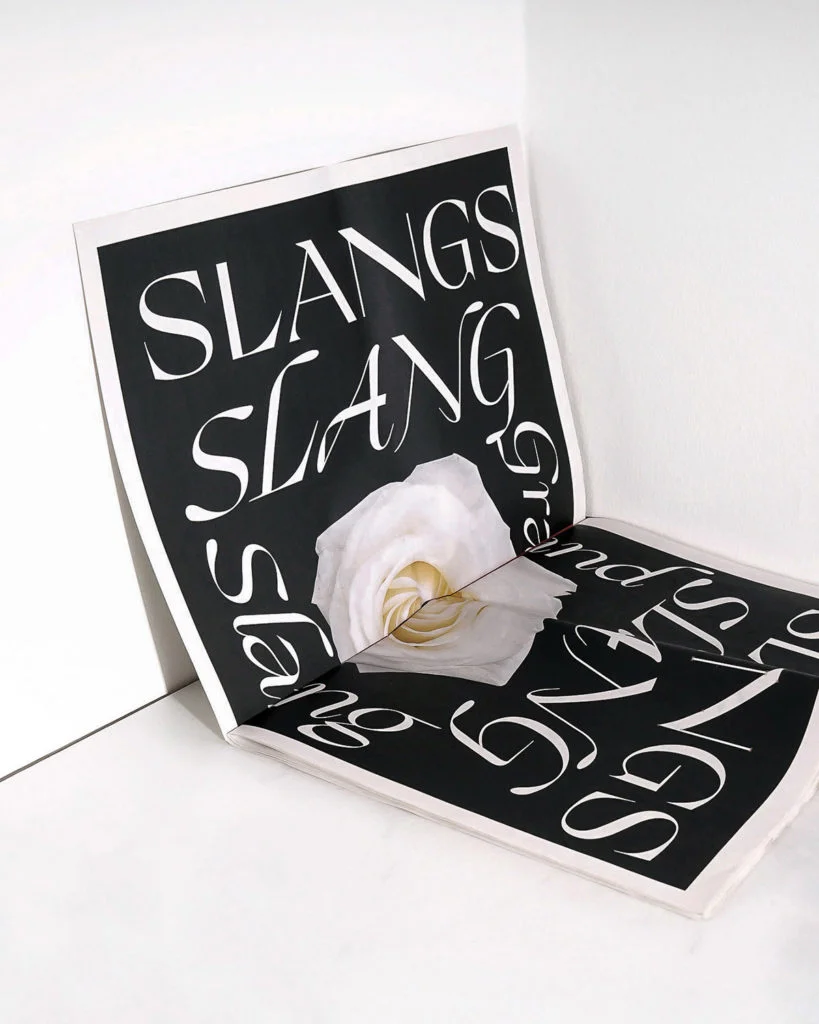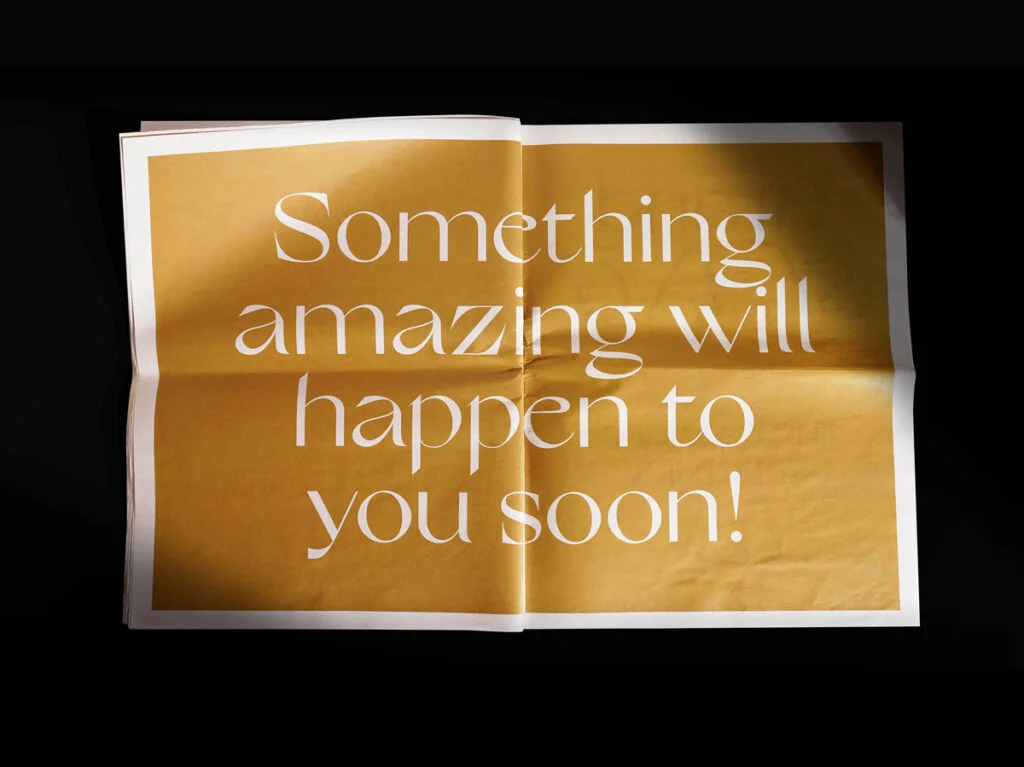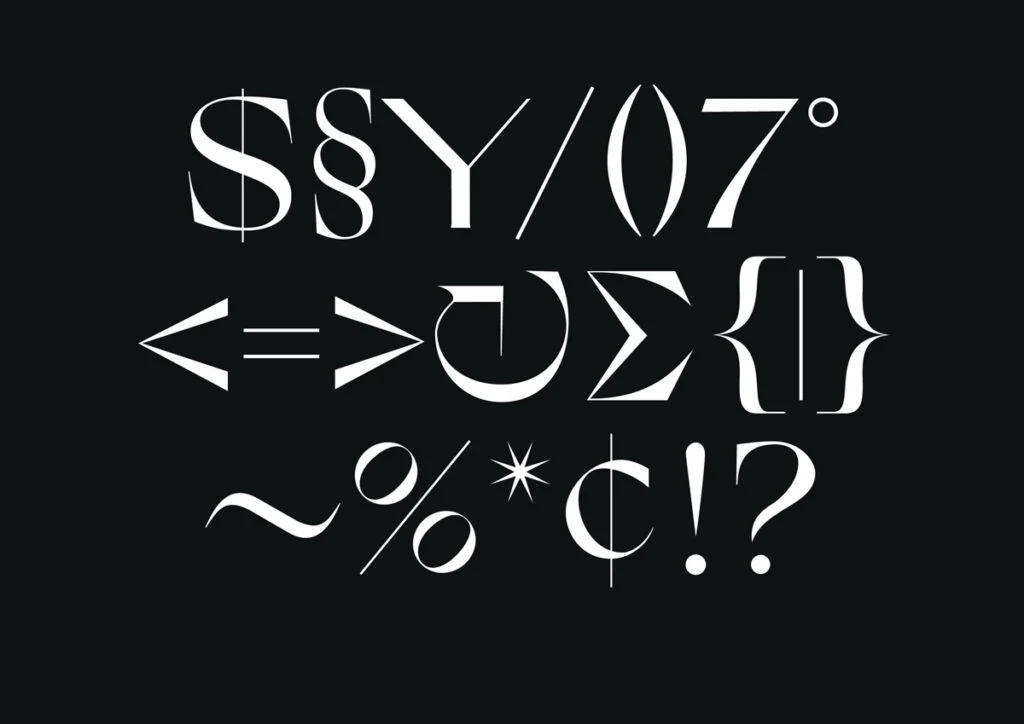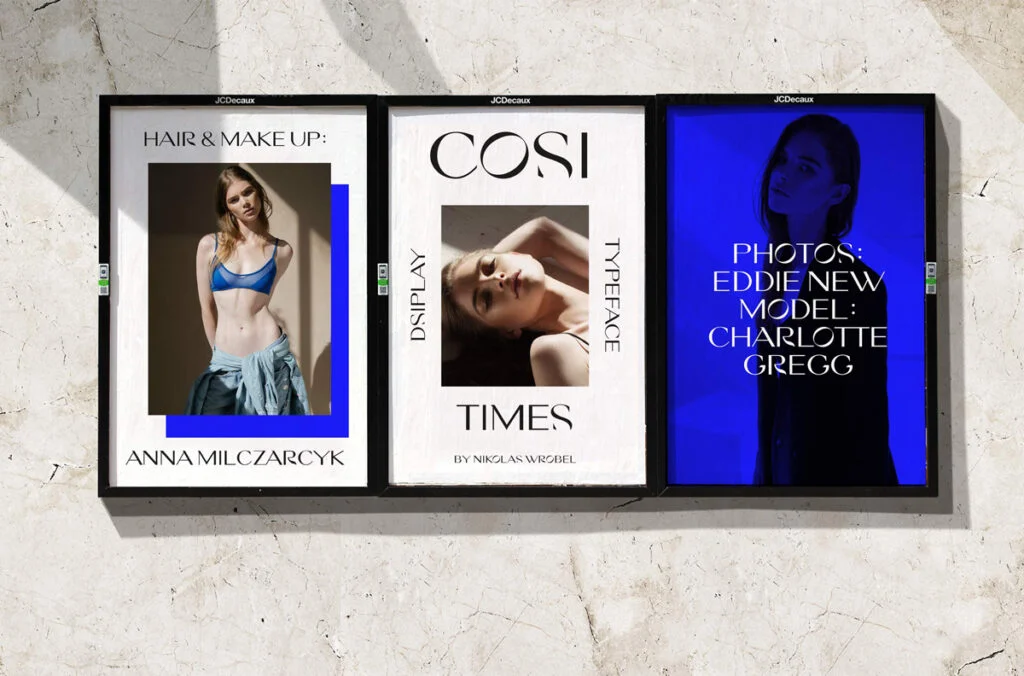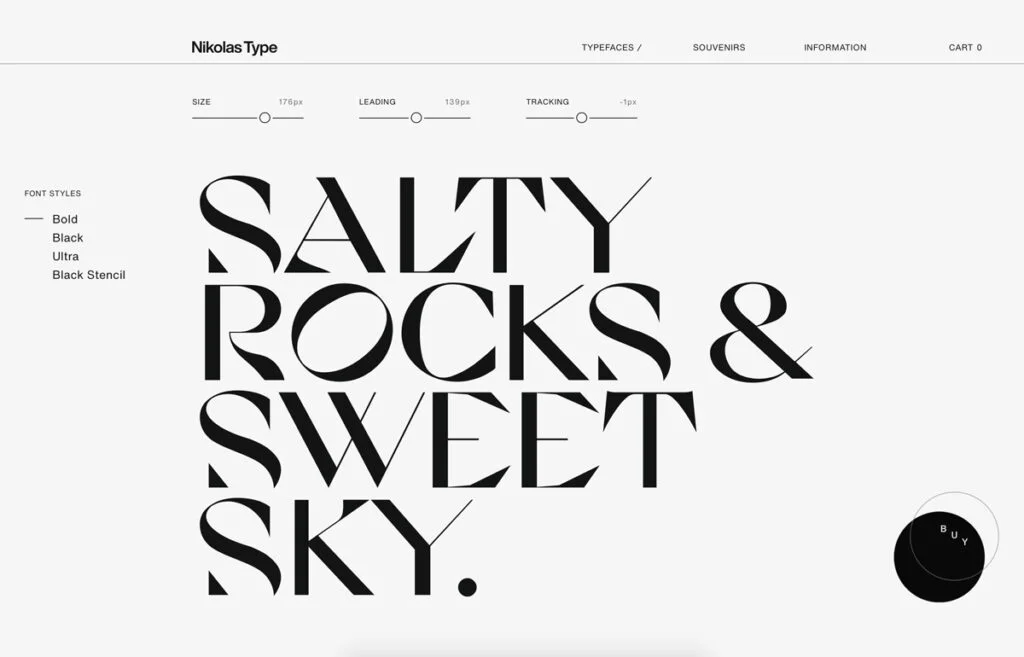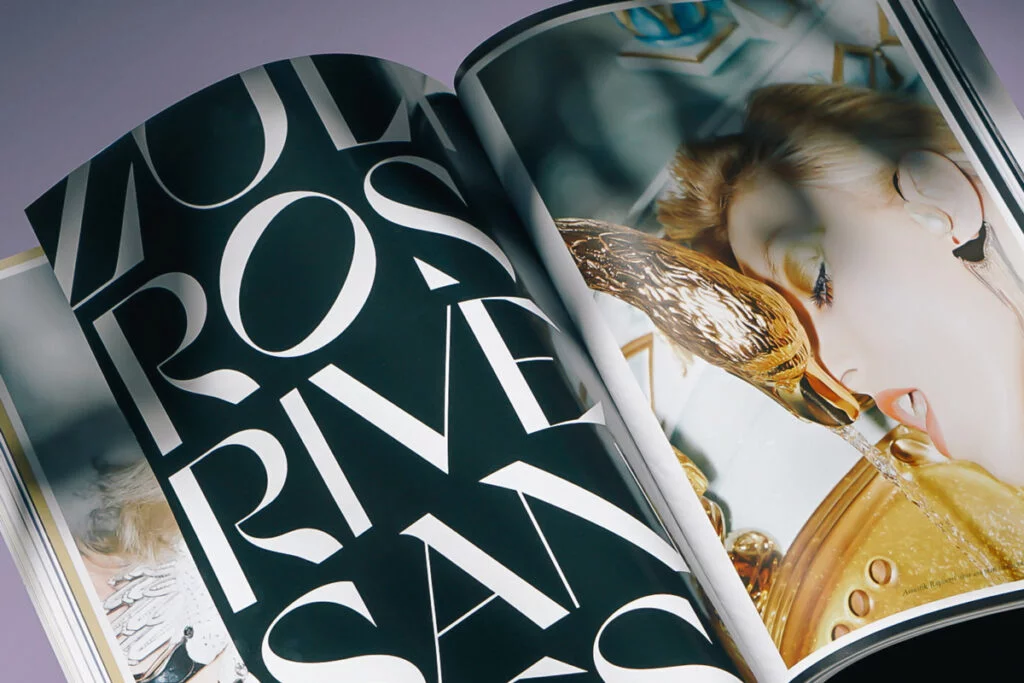
Reimaging letterforms and constructing beautiful typographic creations is Cologne-based type foundry Nikolas Type, established by Nikolas Wrobel. Their catalogue of well-thought-out type designs builds upon a foundation of refined shapes and considered details, creating an idiosyncratic voice for communications of all forms. After stumbling on their slick and simple website, we contacted founder Nikolas to find out more information on his new foundry.
Amber: Hi Nikolas! Can you tell us about your new type foundry? What design background did you have before?
Nikolas: Type always has been a natural part of my Identity — as a child, as a teenager, in my beginnings as a designer — each phase in my life was convoyed by creating letterforms as a beautiful matter of course. With the foundry of Nikolas Type I build an environment where my love towards type can finally grow and flourish, a place where new type design is able to connect with terrific minds from all over the world. My background is deeply rooted in Graphic Design with a holistic education combining multidisciplinary facets of creativity. I’ve been working in the design industry for over a decade now and started Nikolas Type out of my peak position as a design director, when I decided to go all in and fully commit to my dream.
A: What particular styles of typefaces are you interested in designing and putting out there into the industry?
N: I want to create type that is pure. Type that feels right and incorporates all my noble aspirations towards design. I am convinced that if you create something you honestly love for yourself, others will love it too. It is such a beautiful and incredibly challenging thing to do, even if it sounds astonishingly easy. At Nikolas Type I want to put out the very best I can to the industry and transcend my love and fascination for letterforms. I believe it is our cultural duty to convey this good intention and through this, make the world a better place. Type is a human force, something we invented together for all us, a visual code to communicate, express, transcend. So good type is not purely about form but also about a good feel. Type is ubiquitous — so who says Fonts can’t change the world?
A: Why did you start up your foundry?
N: Simply because of one special Moment that changed everything. I was in Venice on vacation and couldn’t trust my eyes when I woke up and checked my phone. The day before I released my debut typeface Cosi Times in Germany on my portfolio site with only one little buy button. People from all over the World purchased Cosi Times, have been writing me emails and shared the specimen everywhere. It literally became a hit overnight. I won the lottery! It was clear I would build upon this blessing.
A: Have you overcome any challenges since starting up the foundry? What advice would you give to someone who wants to do the same as you?
N: Type is about slowness and eternity, but our world beats so fast. A foundry has to deliver substantial matter and today also snack-able media content. Not everything needs to have a deeper meaning but all needs to come from the deep within, so it does not get meaningless, contributing to a superficial, hyper monetized, unsustainable but sexy world for only a few. Balance is a challenge, humbleness and gratitude a daily exercise. I would say how you handle time might be the biggest challenge, especially once you are beautifully connected with the world. We want to give everybody reaching out to us the same attention, whether if it’s a student or a highly renowned international luxury fashion brand. This is extremely giving, but also demanding. As talents are so diverse, it feels haughty to give general advice. But investing in finding the right creative partners for components where you feel you don’t have the time to perform on a top-notch level is essential. I was extremely fortunate to partner up with the exceptional talent Jingqi Fan before she was swooped by Apple. This collaboration wasn’t only a wonderful energy giver and quality enhancer, but also led into a world-class foundry site, receiving so many awards and recognition, so Nikolas Type was able to welcome wonderful clients right from the start.
A: Finally, any exciting type releases you can tell us about?
N: Oh, yes! You should definitely keep an eye on the next months. Nikolas Type will release a versatile, widely applicable font, balancing the fine line between both text-ish and expressive display characteristics, possibly with an emotional variable. Simply said a timeless quintessential you don’t want to miss in your collection. Beyond this, I am happy to announce we have our first bespoke custom font engagement, and we will keep striving for exciting collaborations with the type and graphic design world.